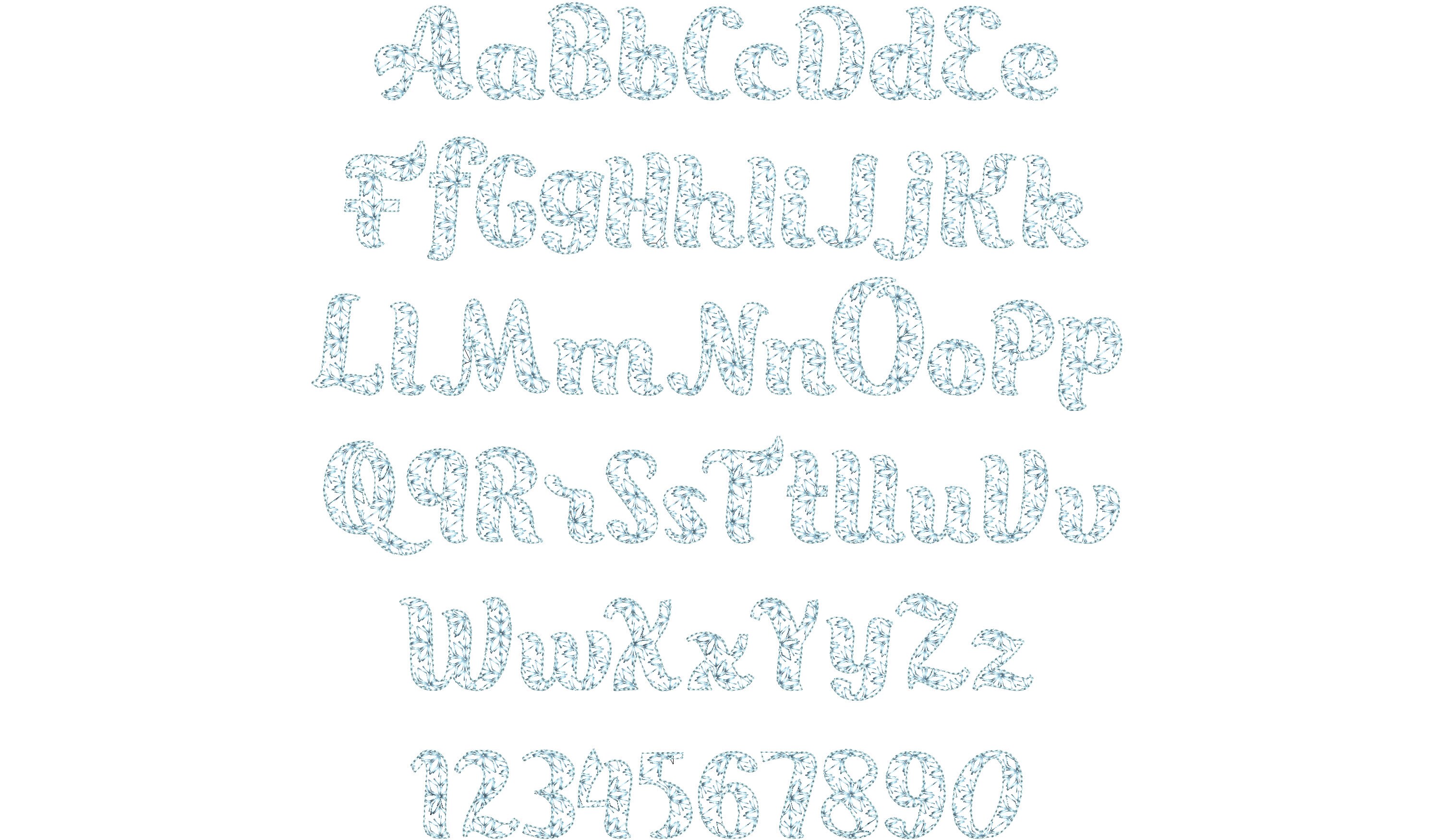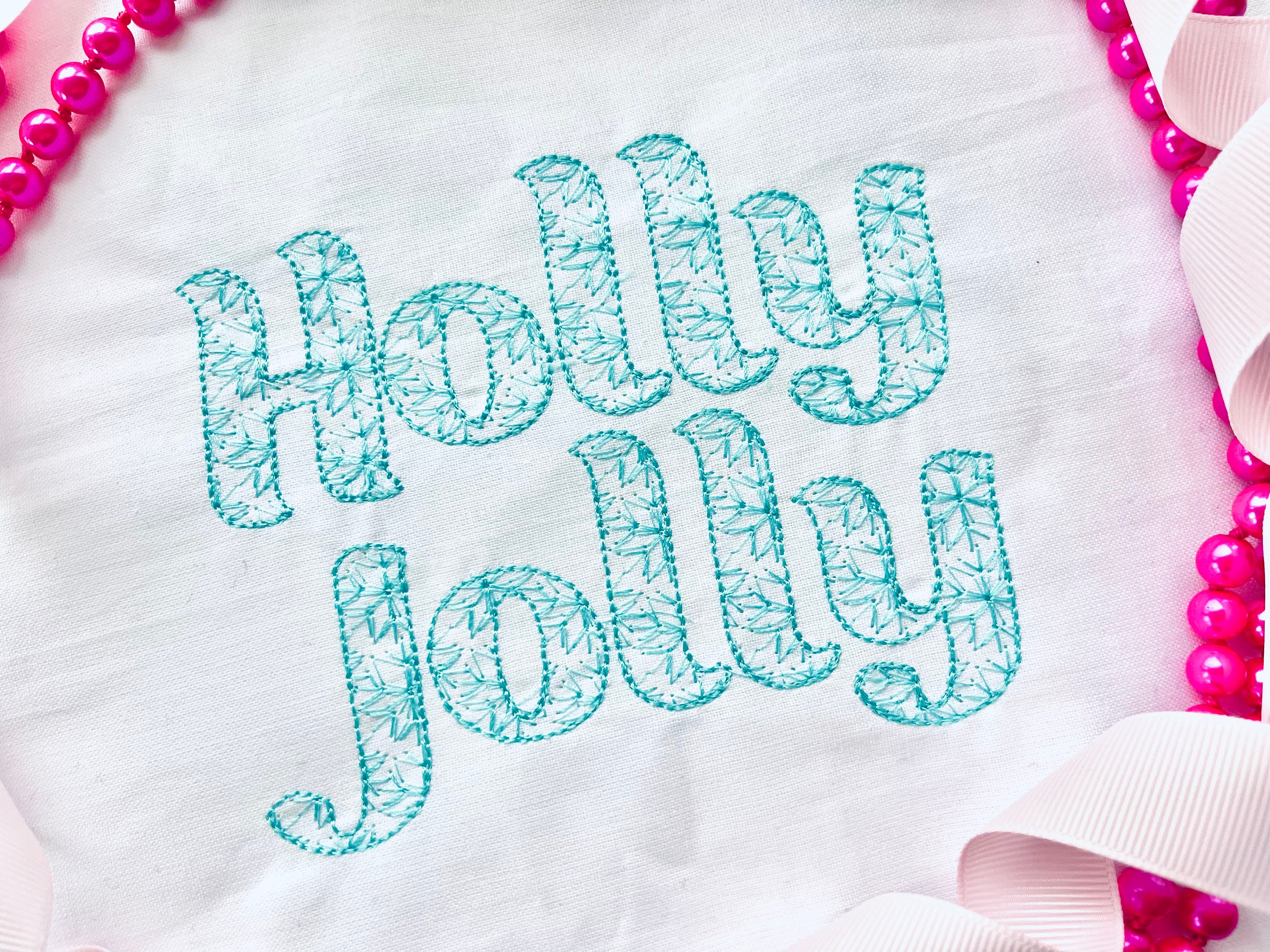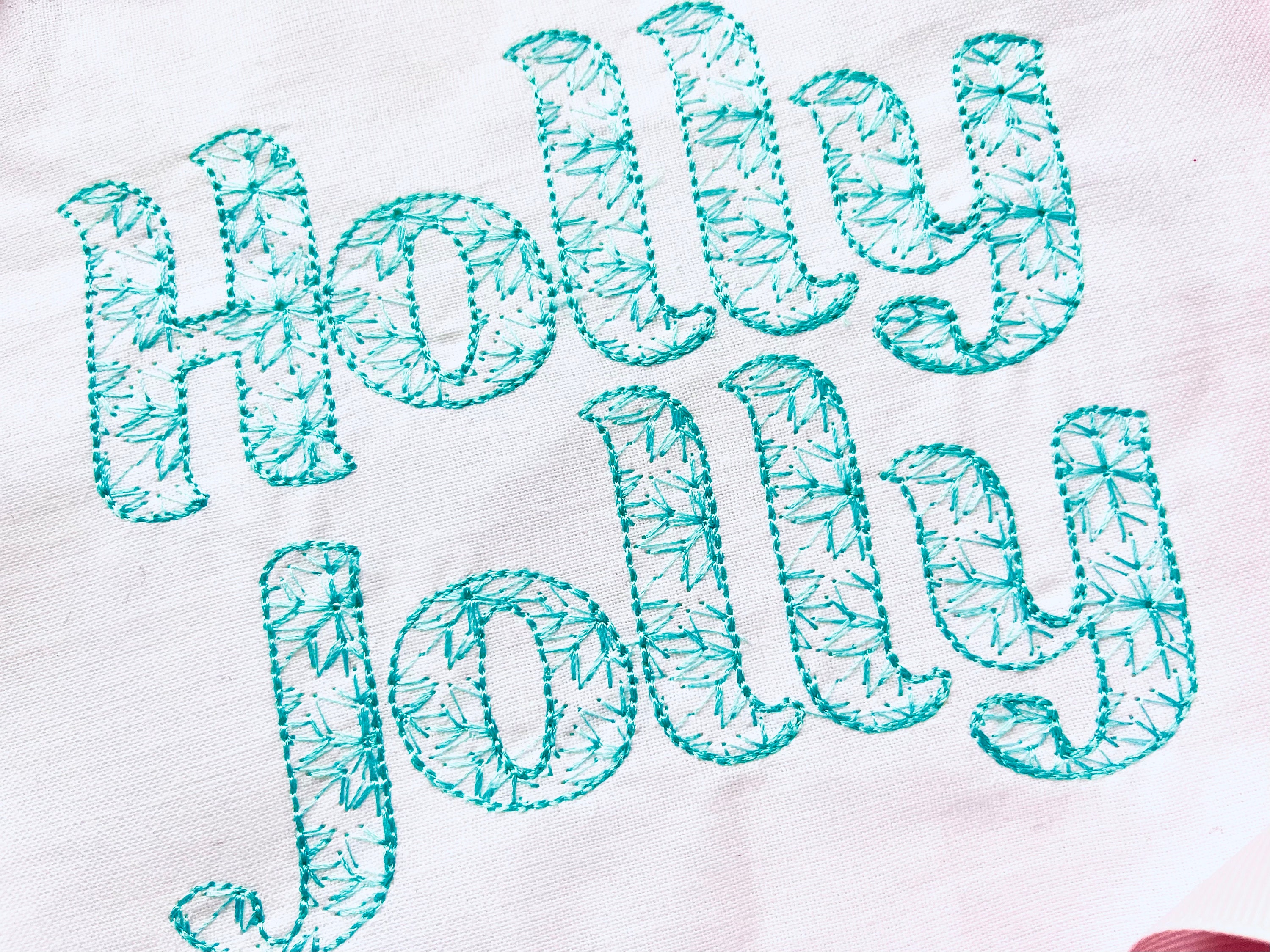
Frozen snowflake snow light delicate handwritten cursive Font alphabet machine embroidery designs sizes 1.1 thru 4.6 inches, kids name, BX
This is a light stitch design, the font is transparent, and the background fabric looks through. Awesome effect!
Uppercase and lowercase letters, and numbers.